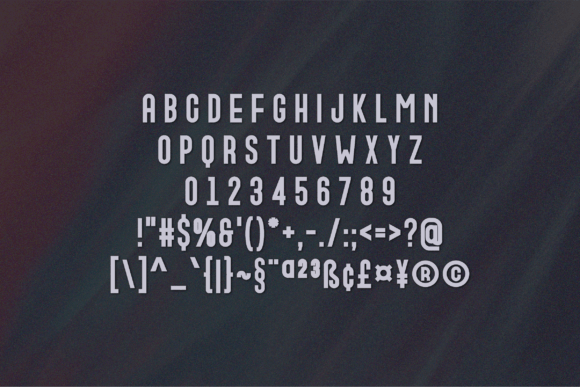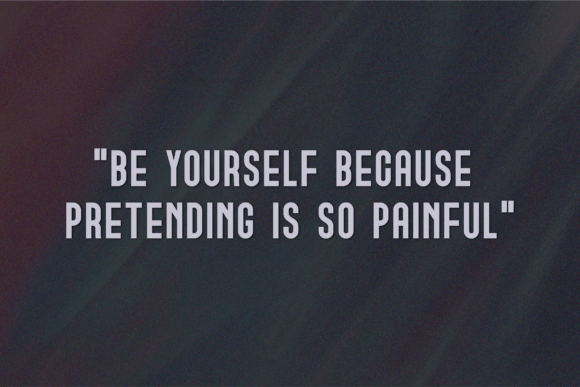
Unlocking Creativity with Racelink Font
As a designer, there’s nothing quite like the thrill of landing on the perfect font for a creative project. It’s that moment when everything clicks into place, and your vision starts to take shape. For me, it was the discovery of the Racelink Font – an all-caps sans serif font that’s been a game-changer ever since.
With its smooth and clean lines, Racelink Font is the perfect design resource for any project. Whether you’re working on a logo, branding, or web heading, this versatile font is sure to deliver. And the best part? It’s available for a free download, complete with a transparent background, making it easy to incorporate into your high-quality designs.
For designers, finding the right font can be a challenge, but with Racelink Font, you can rest assured that you’ve got a reliable choice that’s sure to elevate your work.
Key Features of Racelink Font
- Features a modern and sleek design, ideal for use in logos, branding materials, and other visual identity projects.
- Includes a wide range of glyphs, including international characters and symbols, making it a versatile design resource.
Honest Review: Racelink Font
As a designer, I’m always on the lookout for high-quality design resources that can elevate my creative projects. Recently, I stumbled upon the Racelink Font, and I’m excited to share my honest review.
Overall impression: I think the Racelink Font is a great addition to any designer’s toolkit, especially for creative projects that require a modern and sleek aesthetic. While it may have some limitations, its high-quality design and free download make it a valuable resource for designers on a budget.
Tips for Getting the Most Out of Racelink Font
Experiment with different font sizes, colors, and combinations to create unique and eye-catching designs. You can also use Racelink Font in conjunction with other design elements to add depth and visual interest.
Common Use Cases for Racelink Font
Racelink Font is perfect for creating logos, business cards, brochures, and other marketing materials. It’s also great for adding a touch of style to your social media posts and website content.